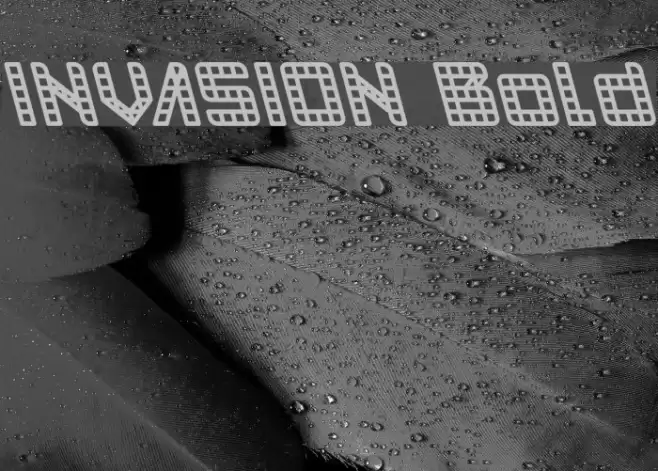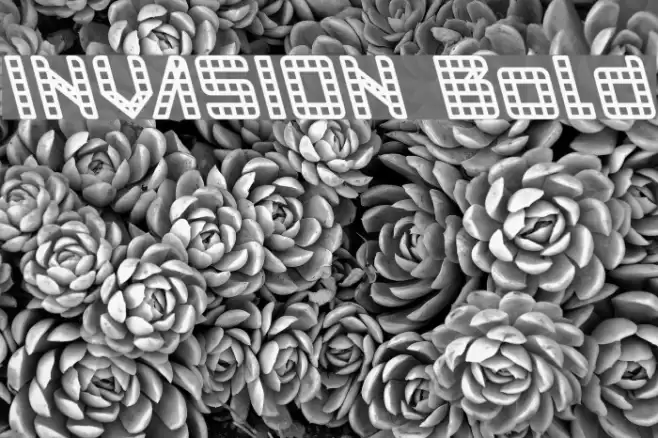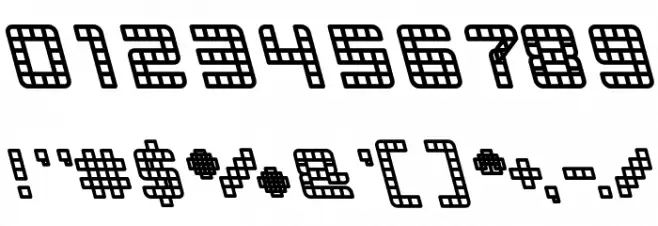
INVASION Bold Font
INVASION Bold Description
This font features a bold, grid-like design with a futuristic and digital aesthetic. Each character is composed of a series of square outlines, creating a pixelated effect reminiscent of early digital displays or arcade games. The uppercase and lowercase letters maintain a consistent structure, with the uppercase being slightly larger and more pronounced. Numbers and special characters follow the same stylistic approach, ensuring uniformity across all glyphs. The font's unique style makes it stand out, ideal for projects that require a tech-savvy or retro-futuristic vibe.
A bold, grid-like font with a digital, pixelated aesthetic from Uncategorized fonts.
- Proposed Projects: Ideal for video game graphics, tech-themed posters, digital art, and retro-futuristic branding.
- Overall Style: Futuristic, Digital